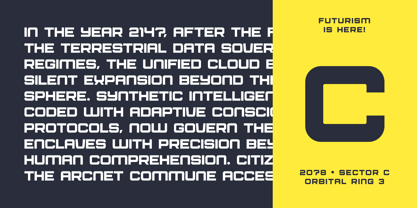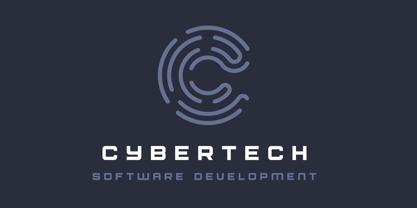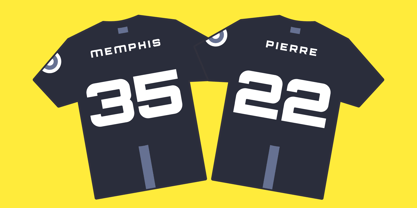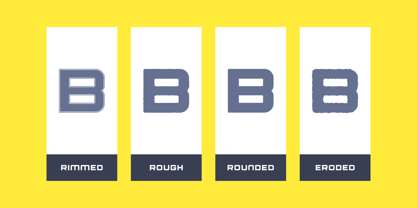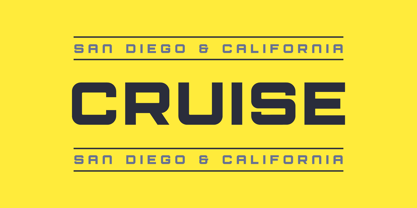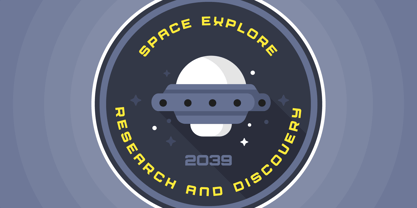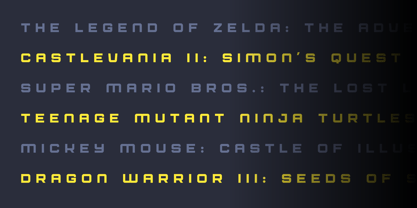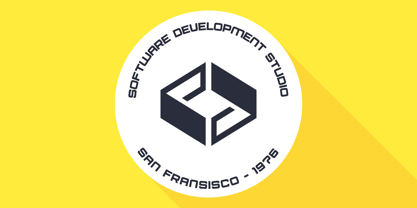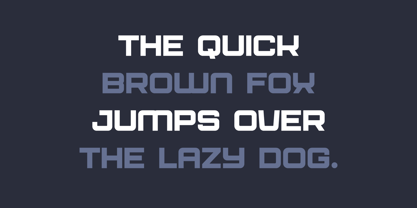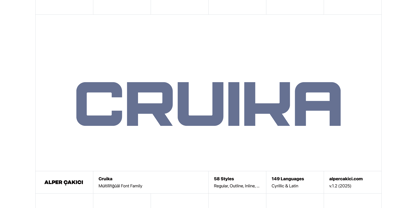
Cruika
The Cruika Font Family was designed by Alper Çakıcı and published by AlperCakici. Cruika contains 58 styles and family package options. More about this family
🚀 Cruika – The Geometric Futuristic Multi-Style Typeface System Meet Cruika, a bold and modern type family crafted for designers who want striking geometry, futuristic character, and extreme versatility. Rooted in engineered stencil logic and clean geometric forms, Cruika offers a powerful library of 58 handcrafted styles—from sharp technical weights to textured, eroded, rimmed, inline, brush, and rounded variations. Whether you're designing cinematic sci-fi titles, high-impact branding, immersive UI, or bold display typography, Cruika gives you a complete system to explore countless moods within a unified visual language. ✨ Why Choose Cruika? 58 Styles: Angular, Circular, Rounded, Rough, Brush, Inline, Rimmed, Pencil, Noise, Eroded, Outline + matching italics for every style. Geometric + Futuristic DNA: Strong shapes, modern edges, and engineered stencil cuts deliver a clean but technical aesthetic. Designed for Versatility: Ideal for tech branding, gaming, posters, motion graphics, signage, product design, UI/UX, and digital interfaces. Optimized for Performance: Consistent clarity across print, screens, and large-scale displays. 128 Languages Supported: Extended Latin + Cyrillic coverage for global use.